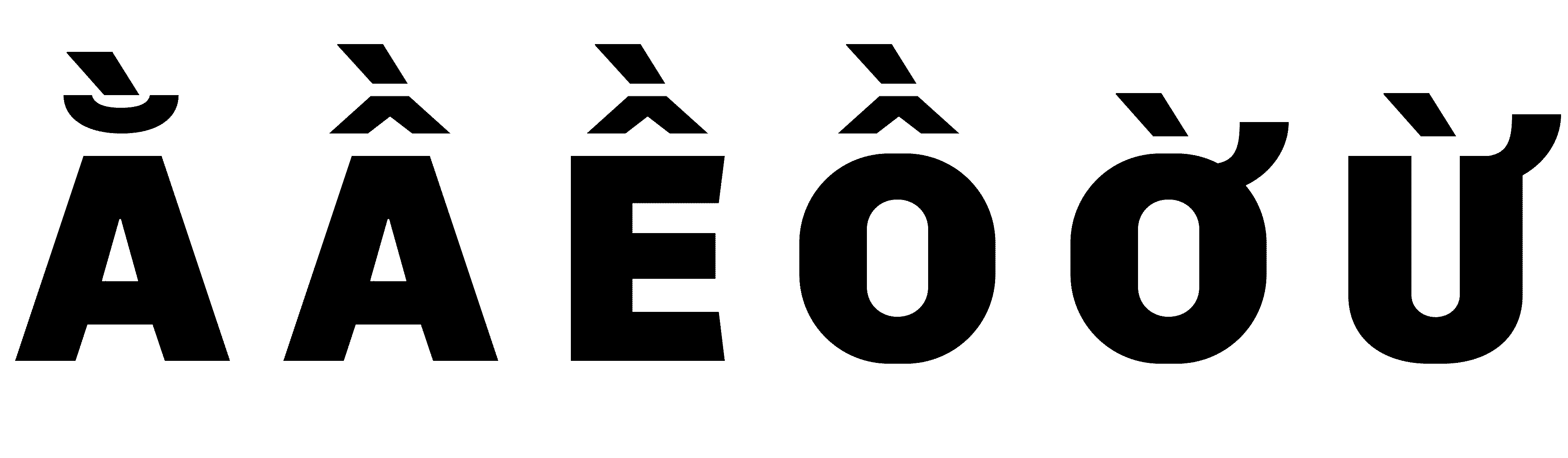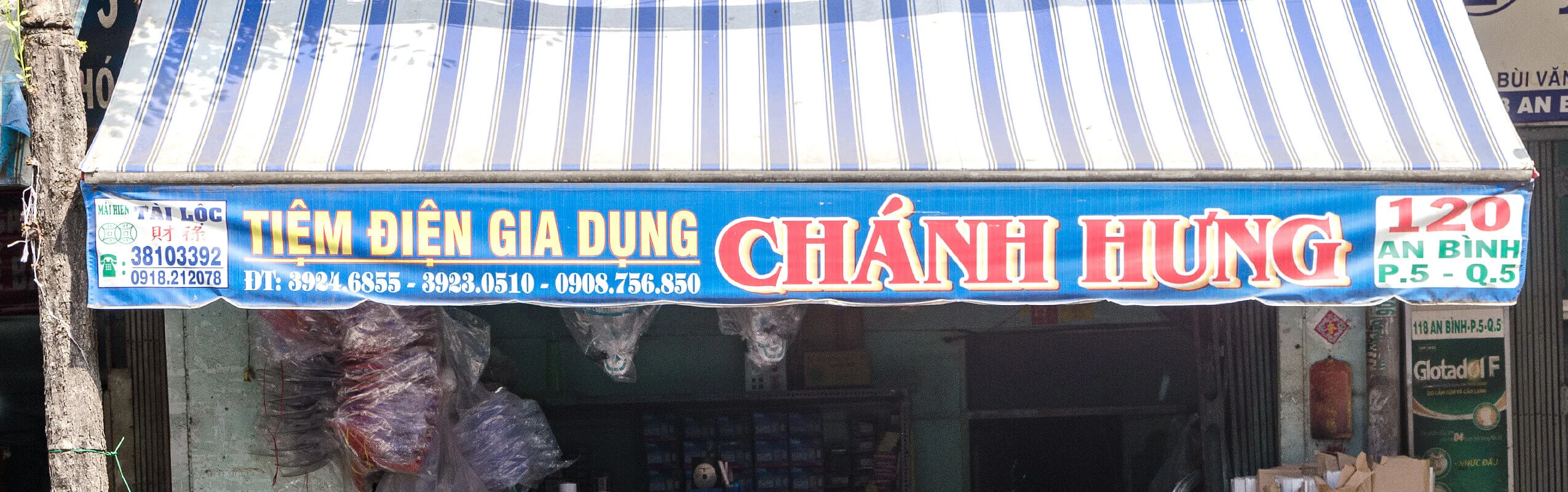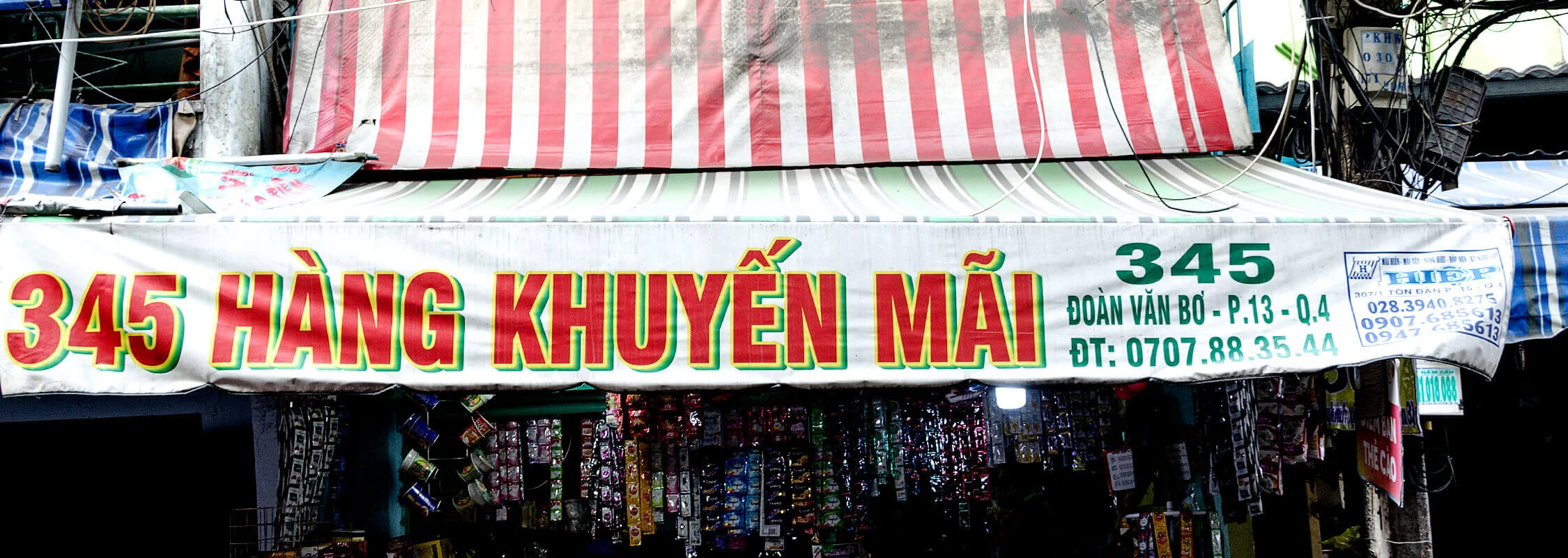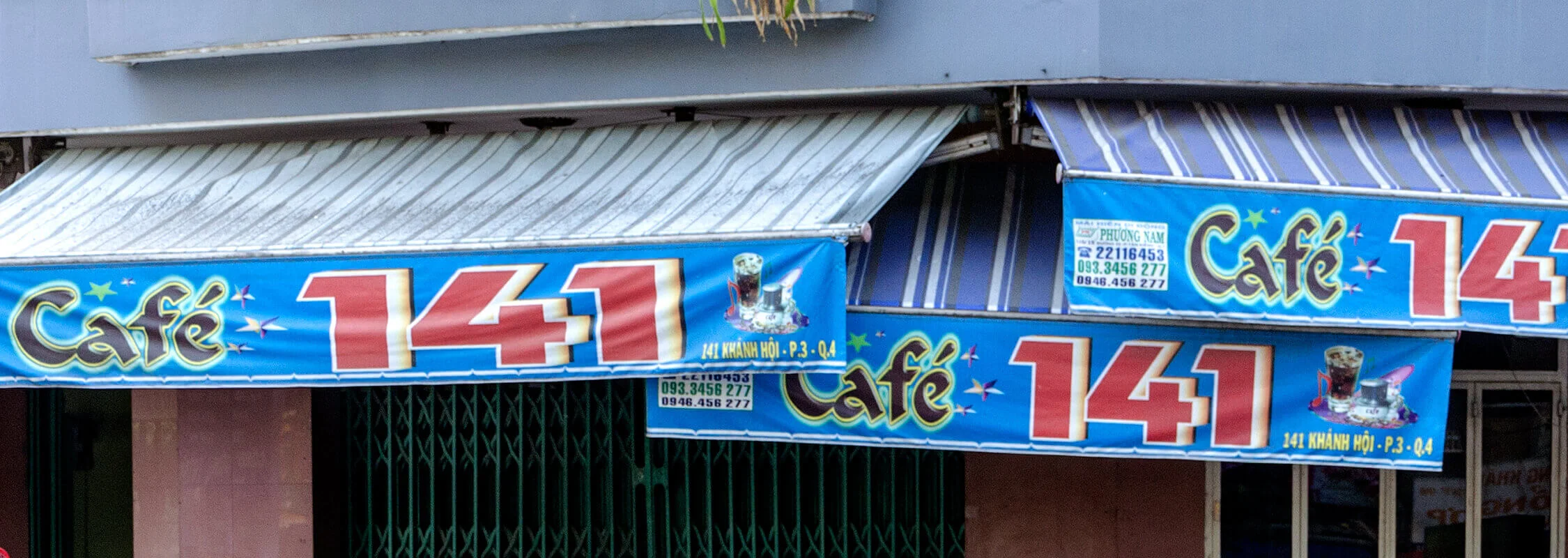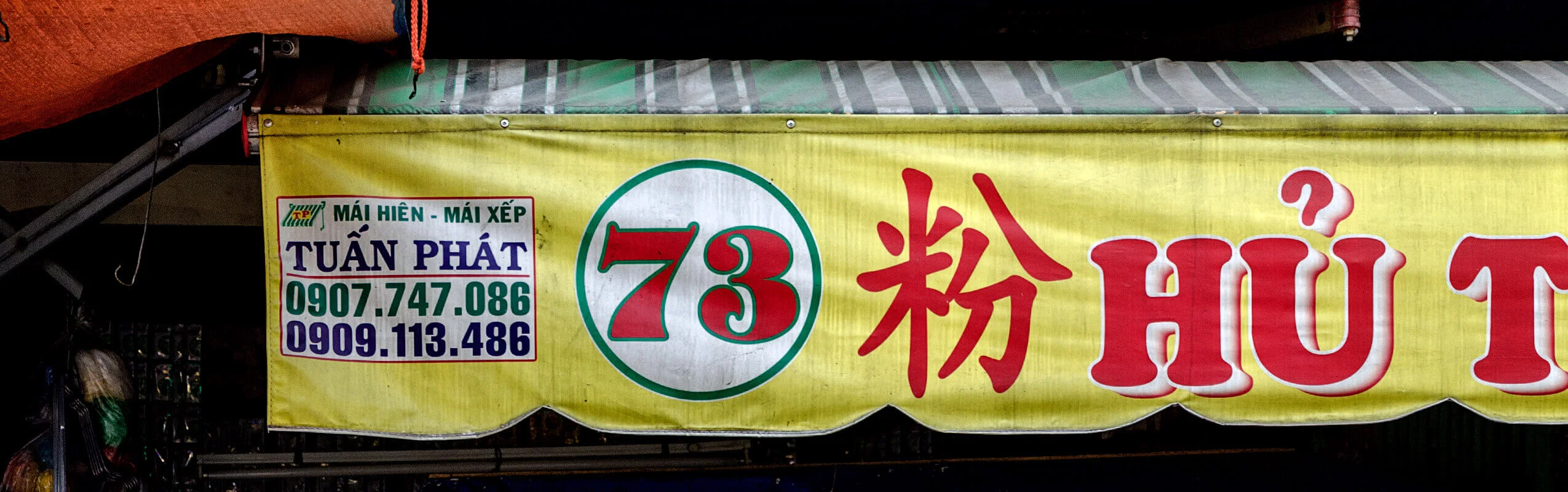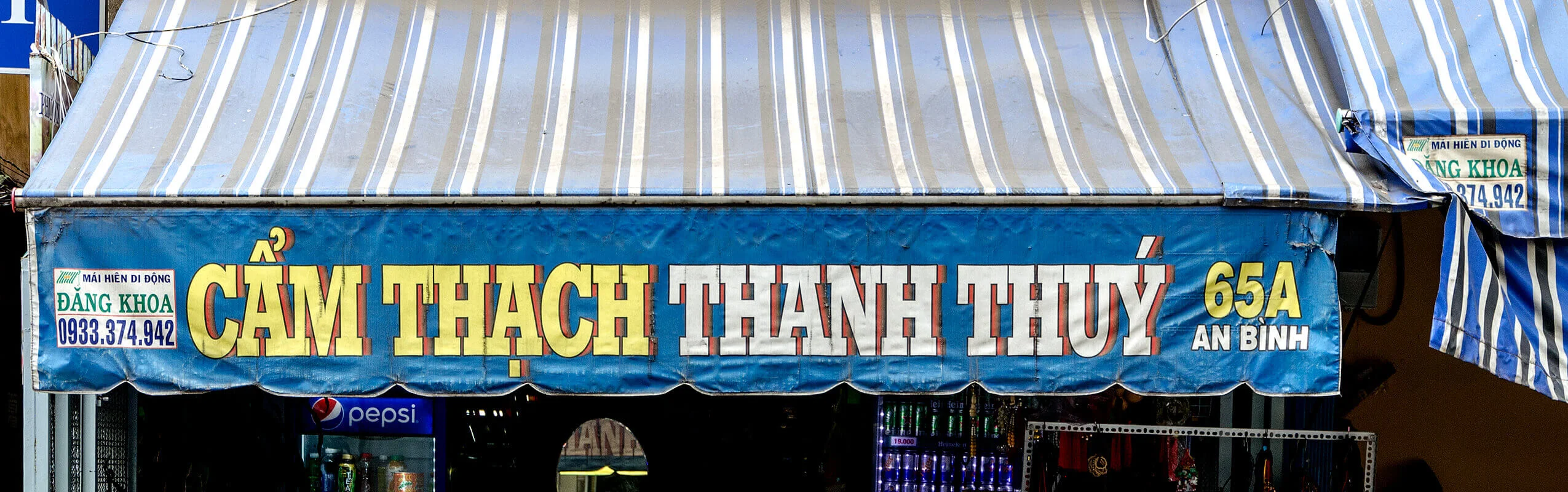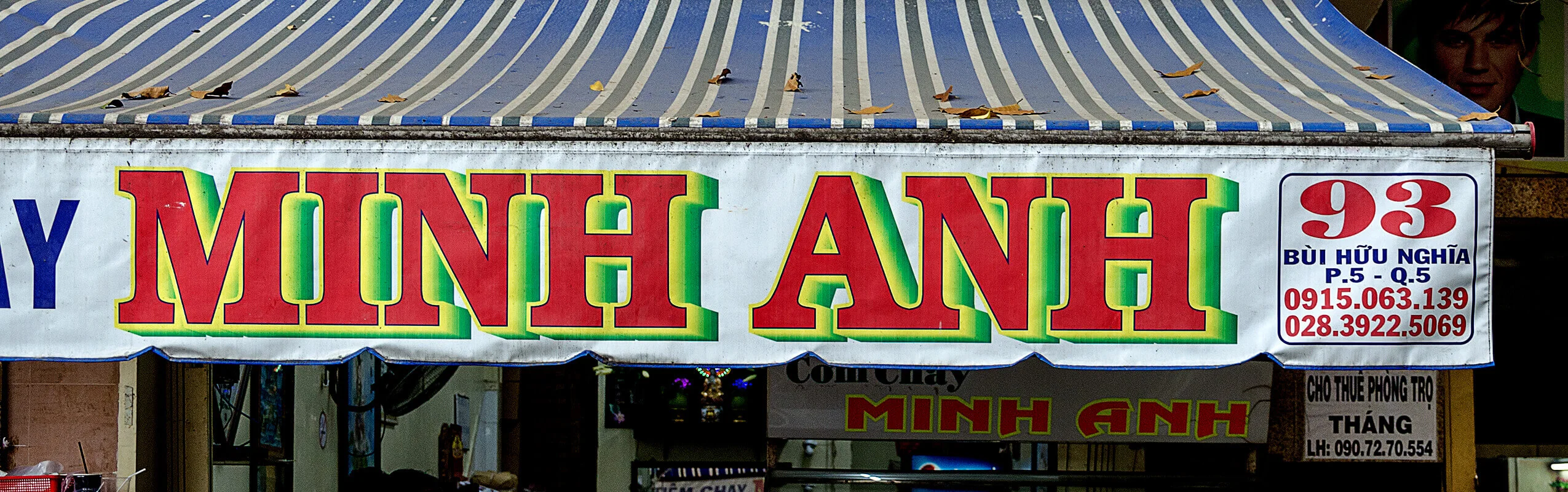
Awnings as Advertising Space
Extreme Scale 3D-Typography
In Ho Chi Minh City, the prolific use of awnings as advertising surfaces is a defining feature of the urban landscape. Smaller shops and restaurants, in particular, make use of these large-format displays to attract attention, often prominently presenting the house number in oversized numerals.
These awnings also reflect a pronounced affinity for three-dimensional lettering. Most inscriptions employ shadows, outlines, gradients, or other 3D effects—more often than not, in combination. Rarely absent: the name of the awning manufacturer.
As a tonal language, Vietnamese employs a wide range of letters with diacritical marks to distinguish between different tones. The writing system includes several modified characters: some carry additional diacritics—such as ă, â, ê, and ô—while others incorporate them as integral parts of the letterform, as in the case of đ.
These are further complemented by tonal marks, including the acute, breve, tilde, and underdot, which are used to denote six distinct tones. A comprehensive overview of the typographic challenges of the Vietnamese language can be found at vietnamesetypography.com.
In combination with the prevalent three-dimensional effects, this rich system of diacritics lends the lettering a particularly distinctive visual character.